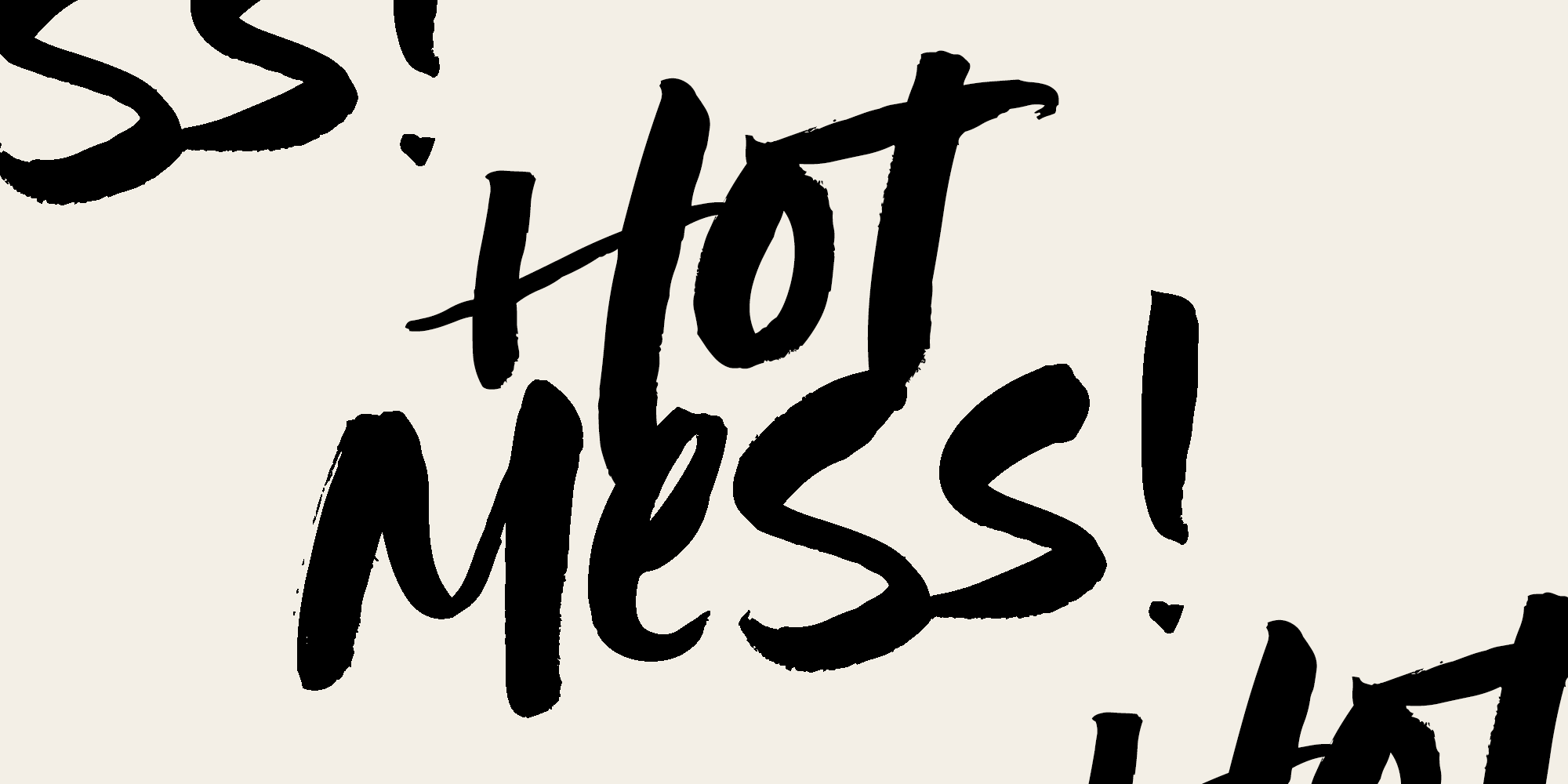
Hot Mess Font is ideal for chaotic comedy clubs, messy lifestyle blogs, humorous greeting cards, chaotic party promotions, reality TV show graphics, honest parenting blogs, relatable social media content, quirky coffee shop signage, stressed-out college materials, honest self-help books, chaotic cooking shows, and authentically imperfect lifestyle brands.
This font is exciting because it perfectly captures the beautifully chaotic reality of modern life, featuring delightfully disheveled letterforms that embody the same endearing disarray and honest authenticity found in real people's actual lives where morning coffee spills on important documents, children leave toys everywhere, and somehow everything still works out because life's most beautiful moments happen in the middle of wonderful chaos that makes for the best stories later. The charmingly imperfect character design reflects both the overwhelming complexity of juggling modern responsibilities and the genuine humor that comes from embracing life's messy moments rather than pretending everything is always perfectly under control. Each letter tumbles with the kind of relatable chaos and honest charm that transforms ordinary text into expressions of authentic human experience.
The Hot Mess Font family includes regular weight with complete character sets featuring chaotically charming numerals, scattered punctuation marks, and decorative elements inspired by coffee stains, scattered papers, messy handwriting, and the beautiful imperfection of real life. Advanced versions may offer additional stylistic variants with enhanced chaotic effects, alternate characters that create naturally messy connections, and relatable ornaments that celebrate the humor and humanity found in life's wonderfully imperfect moments.
Whether you're developing relatable lifestyle branding, creating honest parenting content, or designing authentically chaotic marketing materials, Hot Mess Font Free Download provides the genuine charm and relatable authenticity your project needs to connect with audiences who appreciate honesty over perfection and find beauty in life's wonderfully messy reality. This typeface transforms ordinary text into honest expressions that celebrate both the chaos of modern life and the humor that makes it all worthwhile. The font's authentic character makes it perfect for brands that embrace real life over social media perfection. Honest lifestyle marketers and relatable content creators will love how this font brings authentic messy charm to their work with its genuinely chaotic and endearingly imperfect character that celebrates the beautiful mess of being human.